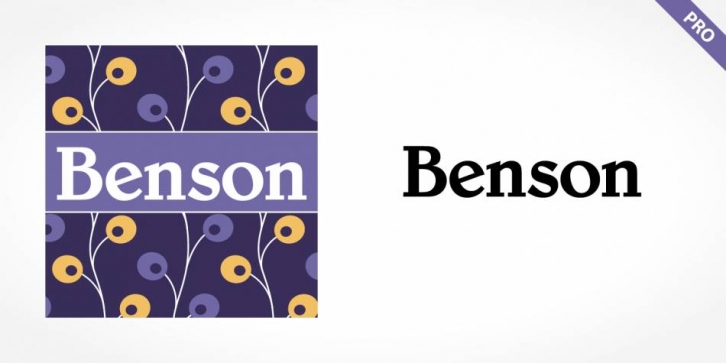
Benson Pro is a display slab and stencil font family. This typeface has six styles and was published by SoftMaker.
Benson Pro has an uncommon style that is difficult to describe. It is a synthesis of many different genres: it is a slab serif with Art Nouveau style but also with many blackletter influences. The angled serifs on the ascenders and the calligraphic flourishes on the upper and lowercase V, W, and Ys reference marks made by pens. There are also many other special characters that are unlike any other designs. Have a look at the fun lowercase a, the quirky lowercase f and g, and the unique C, F, L, and R for the uppercase. This design works especially well for display sizes, but is also good for short amounts of text. The mood and image suggested by this typeface is great for menus, invitations, and signs when you want to send a personal and friendly message. Its Art Nouveau roots also give it a place in history for designs from the Victorian period up through the 1920’s and 30’s